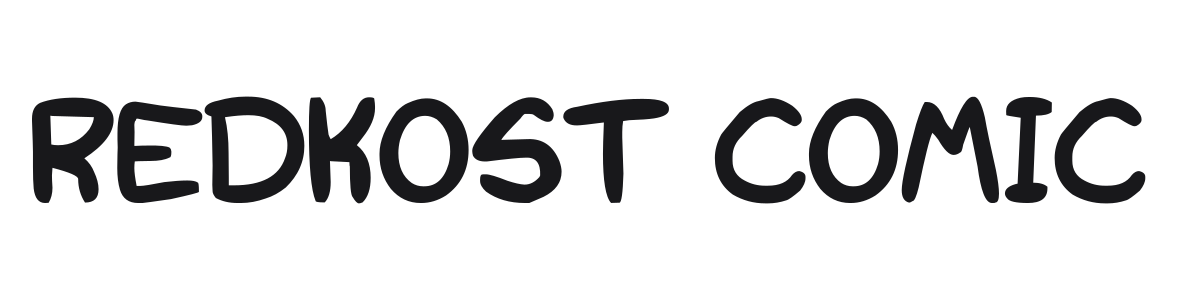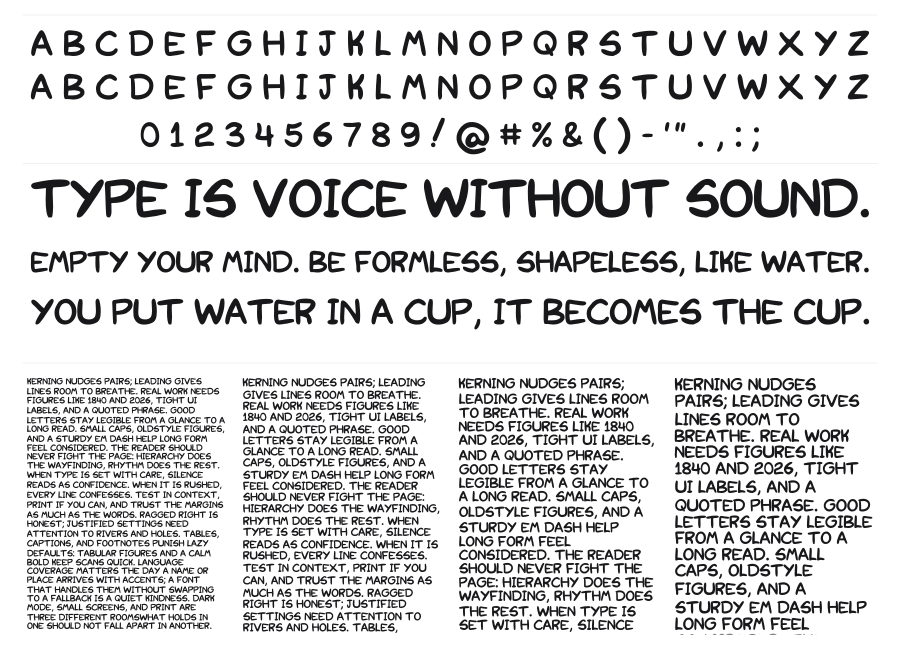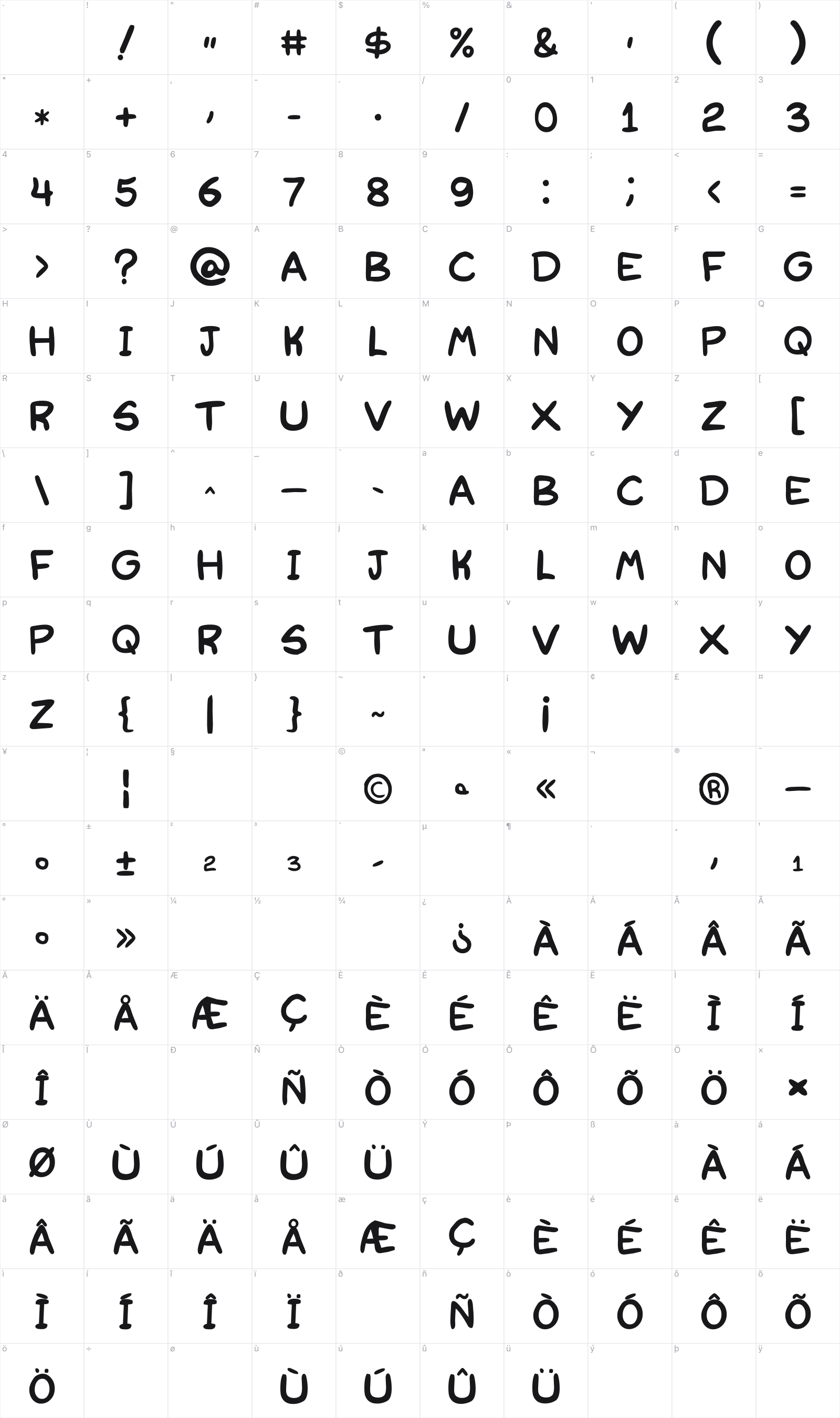
Redkost Comic
Redkost Comic is a bold, hand-drawn comic book font with chunky rounded strokes and a naturally informal feel. The slight irregularity between characters keeps it from feeling mechanical, giving it the loose energy of real comic lettering. Strong at large sizes for titles, signage, and anything that needs a friendly, energetic tone.